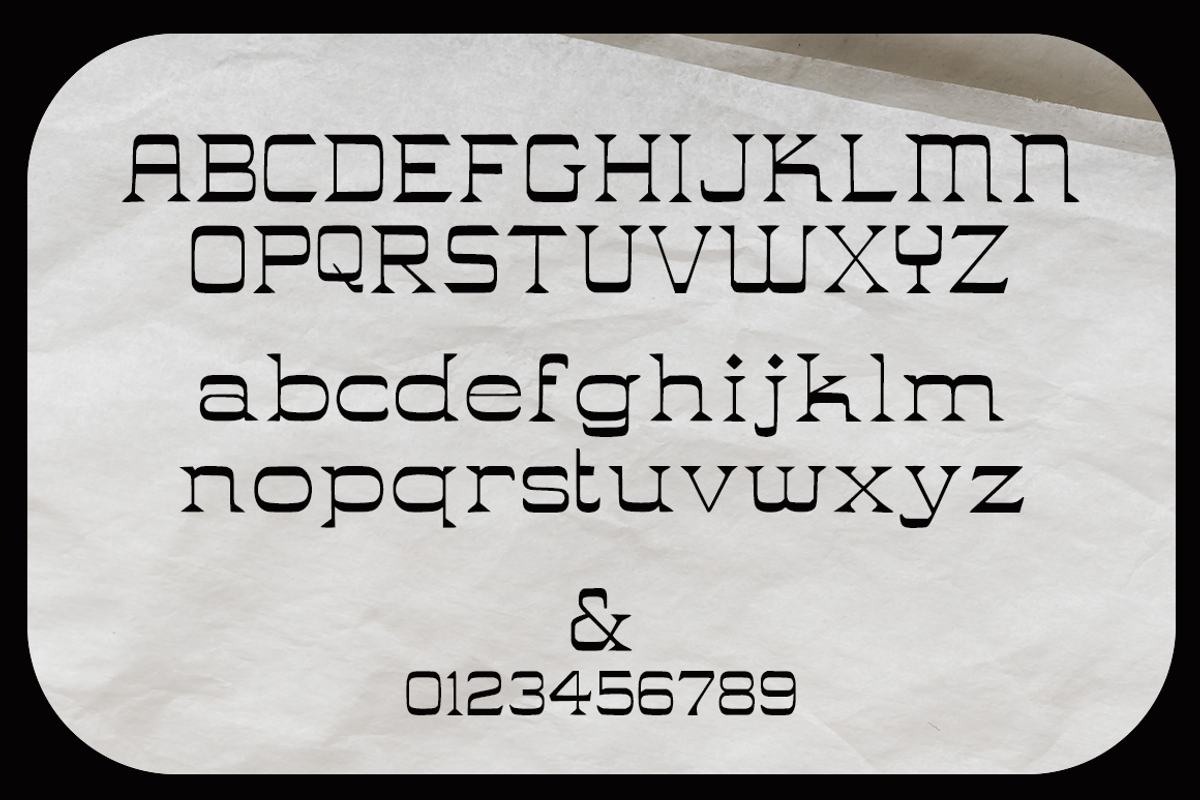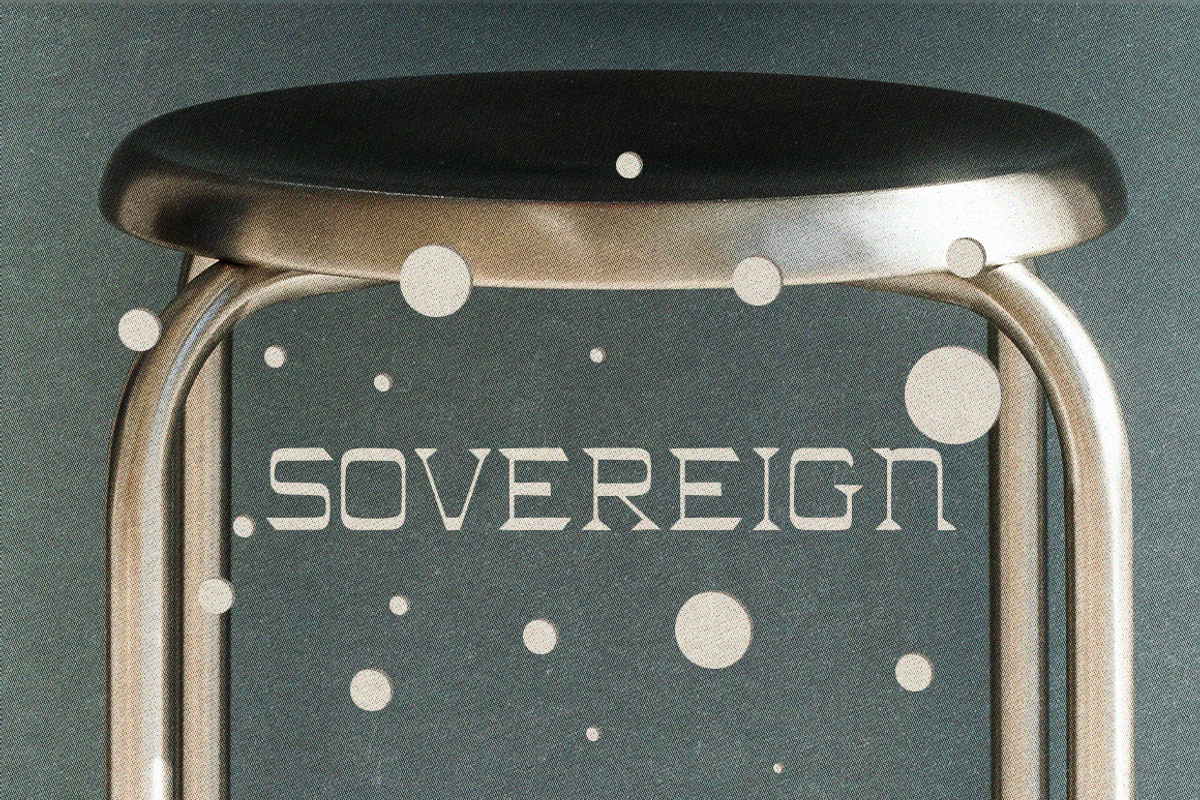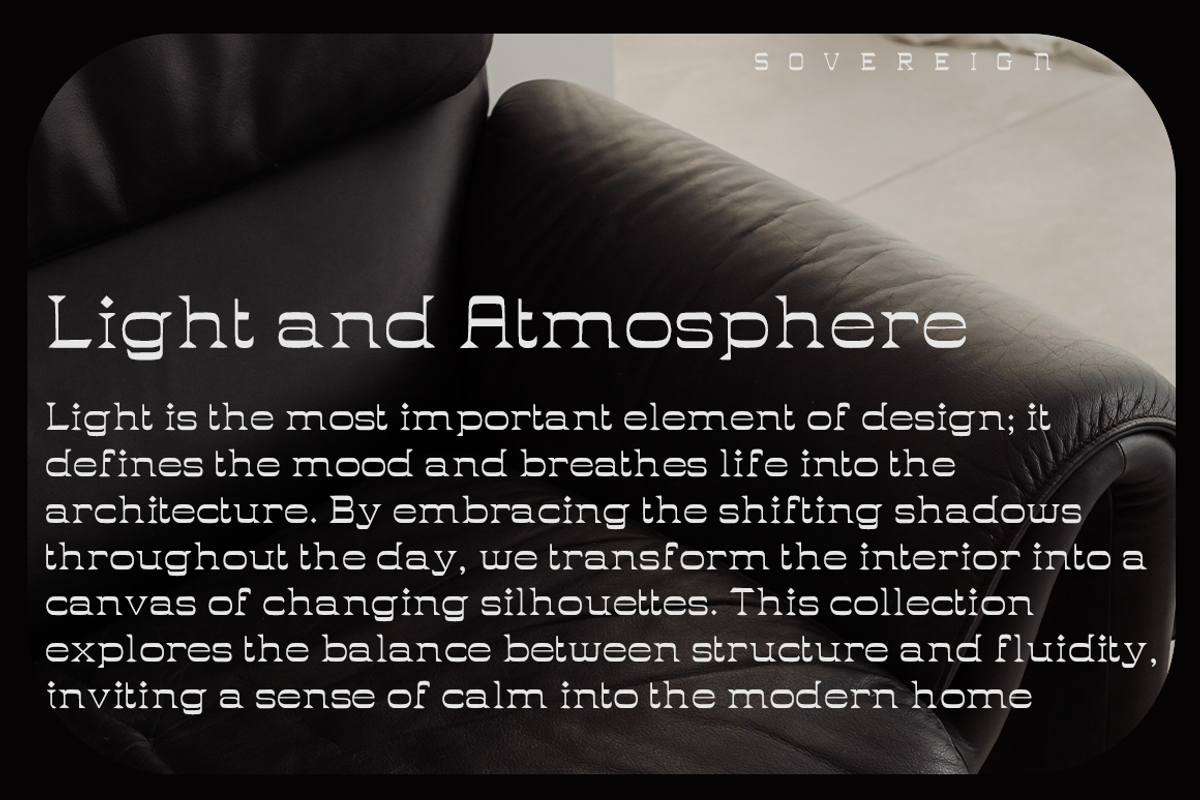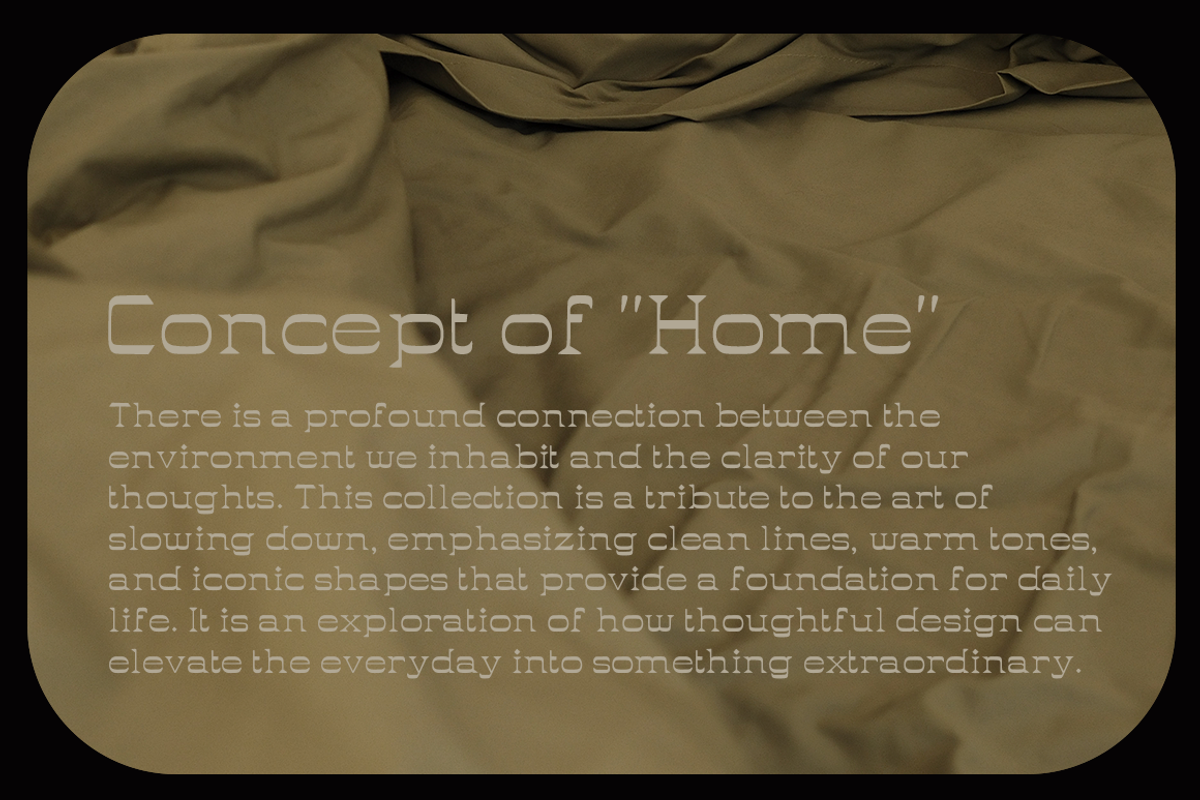
SOVEREIGN - Serif Font
Meet SOVEREIGN Where geometric precision meets editorial elegance.
SOVEREIGN is a premium display serif that defies convention. Featuring high-contrast strokes and uniquely stylized, flat-cut terminals, this font was crafted for those who value bold minimalism.
Whether you are building a boutique brand identity or crafting a magazine feature, SOVEREIGN provides a distinct, architectural voice that stands out without shouting.